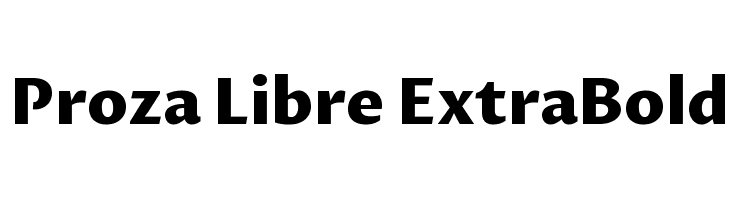
A bold, modern typeface with clean lines and strong visual impact.
A bold, italic typeface with a modern and dynamic style.
A modern, italic sans-serif font with clean lines and a dynamic slant.
A modern, light sans-serif font with excellent readability and balanced proportions.
A modern, light, italic sans-serif font with balanced spacing and elegant slant.
A modern, clean typeface with consistent stroke width and excellent readability.
A modern, italic typeface with clean lines and balanced proportions.
A modern, clean sans-serif font with excellent readability and versatility.
A modern, semi-bold sans-serif font with a clean and versatile design.
A modern sans-serif font with semi-bold weight and italic style, offering a dynamic and elegant look.